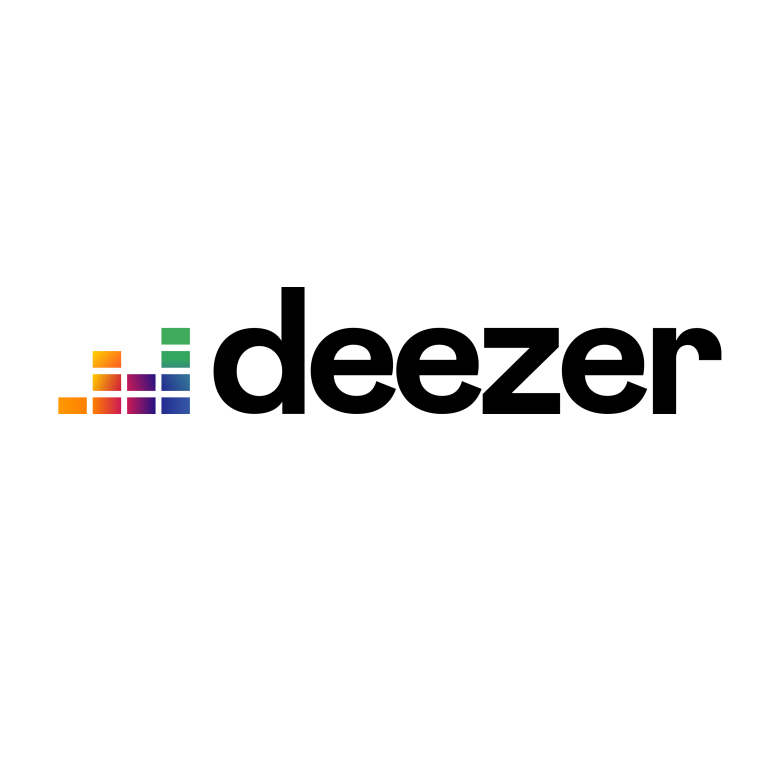
Deezer Logo Font
Fonts in UseDeezer is a music streaming service that offers access to a vast library of songs, podcasts, and radio stations. It was launched in France in 2007 and is now available in over 180 countries.
In 2019, Deezer unveiled its new logo featuring a black logotype accompanied by a music equalizer scale. The logotype, which is set in Mabry font from Colophon Foundry, is a neo-grotesque sans serif typeface inspired by the funk singer Betty Gray Mabry. You can view and learn more about the Mabry font here.